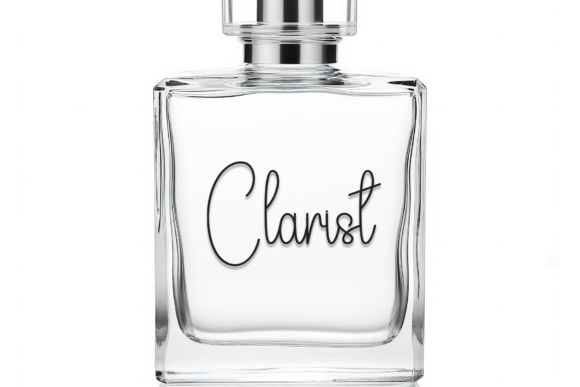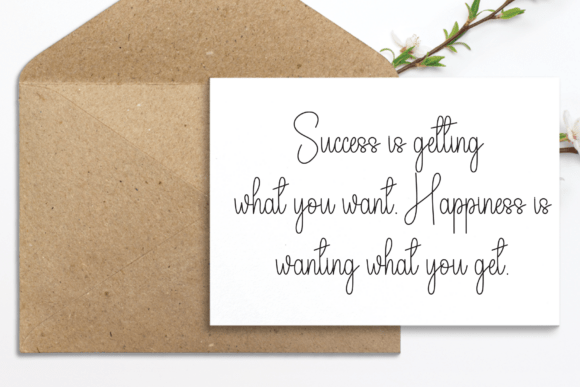
Book Signature Font
Introducing a charming and warm-hearted display font fashioned by hand – an asset that exemplifies the blend of cute and entertaining features. Refined with an amiable touch, this font breathes life into your design outlets, be it wedding invitations, greeting cards, or any platform that begs a sprinkle of fun! Boasting a unique personality, it’s a one-of-a-kind tool that enchants with its inviting appeal, making any message impressively delightful and engaging to the viewer.